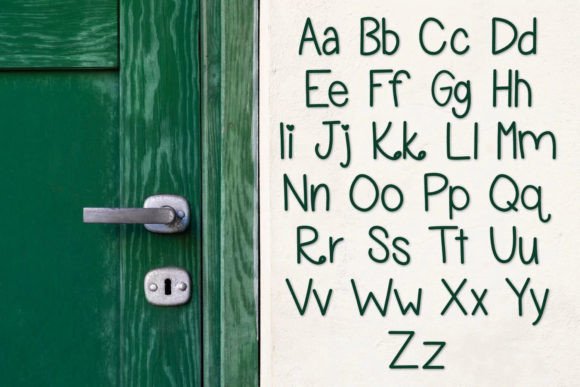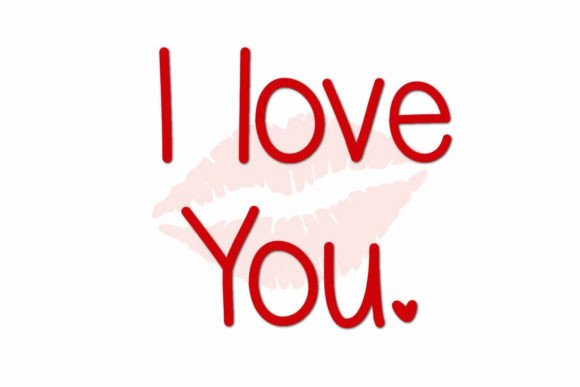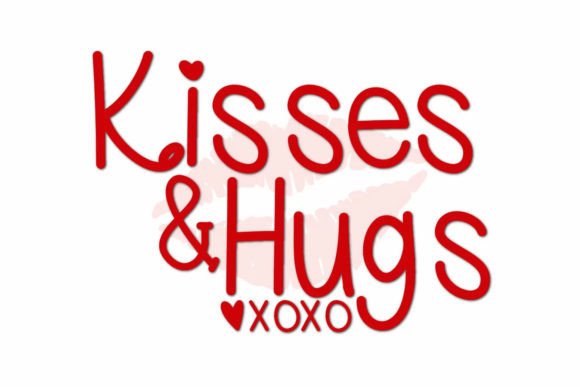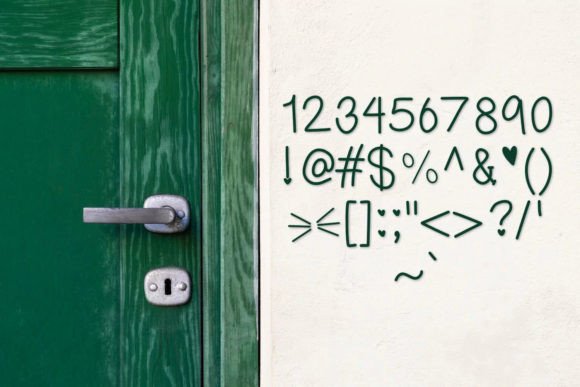
Introducing Girl Next Door: The Ultimate Font for Adding a Flirty Touch to Your Designs
Are you tired of using the same old fonts in your designs? Look no further! We’re excited to introduce Girl Next Door, a fun and playful handwritten font that’s perfect for adding a touch of whimsy and romance to your text. With its basic yet charming design, Girl Next Door is the ideal font for crafters, designers, and anyone looking to add a bit of flirty fun to their projects.
The Perfect Font for Valentine’s Day Crafts
Valentine’s Day is just around the corner, and what better way to celebrate than with a font that’s specifically designed for the occasion? Girl Next Door is the perfect font for creating Valentine’s Day crafts, items, or projects that are sure to impress. With its heart accents and playful design, this font is sure to add a touch of romance and whimsy to your creations.
Whether you’re creating handmade cards, gift tags, or decorations, Girl Next Door is the perfect font to use. The font’s playful and flirty design makes it ideal for creating unique and eye-catching projects that are sure to stand out. Plus, with its easy-to-read design, your message is sure to be clear and concise.
A Font with Heart Accents
One of the standout features of Girl Next Door is its heart accents. These adorable accents add a touch of whimsy and romance to your text, making it perfect for projects that require a bit of flair. The heart accents are strategically placed throughout the font, adding a playful touch to each letter and number.
The heart accents in Girl Next Door are also customizable, allowing you to adjust them to fit your specific design needs. Whether you want to use a single heart accent or multiple accents throughout your text, this font gives you the flexibility to create the perfect design.
Great for Anyone Who Loves Hearts!
Girl Next Door is more than just a font – it’s a way to express your personality and style. If you love hearts, you’ll adore this font! The heart accents and playful design make it perfect for anyone who wants to add a bit of whimsy and romance to their projects.
Whether you’re a designer, crafter, or simply someone who loves to create, Girl Next Door is a font that’s sure to inspire. With its fun and playful design, this font is perfect for creating a wide range of projects, from handmade cards and gift tags to social media graphics and more.
Key Features of Girl Next Door Font
- Handwritten design: Girl Next Door is a handwritten font with a playful and flirty design.
- Heart accents: The font features heart accents throughout, adding a touch of whimsy and romance to your text.
- Easy to read: Despite its playful design, Girl Next Door is easy to read and clear.
- Customizable: The heart accents in Girl Next Door are customizable, allowing you to adjust them to fit your specific design needs.
- Perfect for Valentine’s Day: Girl Next Door is the perfect font for Valentine’s Day crafts, items, or projects.
Tips for Using Girl Next Door Font
Here are a few tips for using Girl Next Door font in your designs:
- Pair with other fonts: Girl Next Door pairs well with other fonts, especially sans-serif fonts.
- Use for headings: The font’s playful design makes it perfect for headings and titles.
- Add embellishments: Consider adding embellishments, such as hearts or flowers, to enhance your design.
- Experiment with colors: Girl Next Door looks great in a variety of colors, so don’t be afraid to experiment.
In conclusion, Girl Next Door is a fun and playful font that’s perfect for adding a touch of whimsy and romance to your designs. With its heart accents and easy-to-read design, this font is ideal for Valentine’s Day crafts, items, or projects. Whether you’re a designer, crafter, or simply someone who loves to create, Girl Next Door is a font that’s sure to inspire.